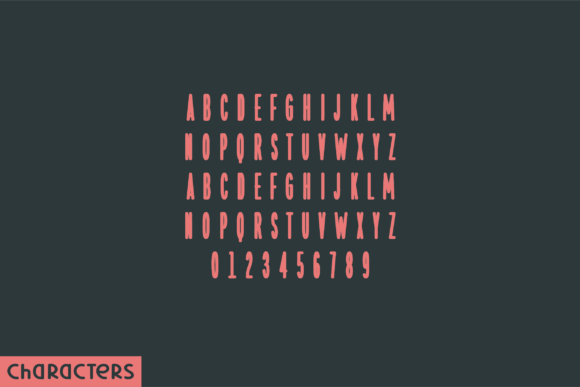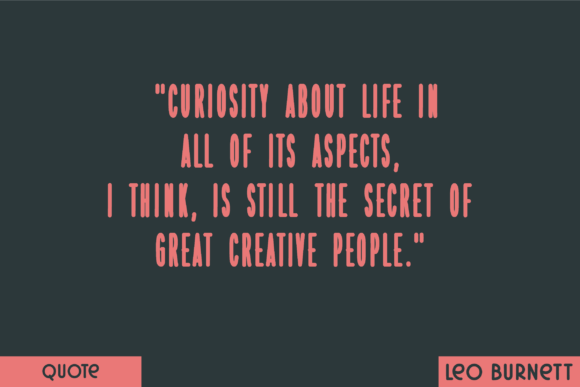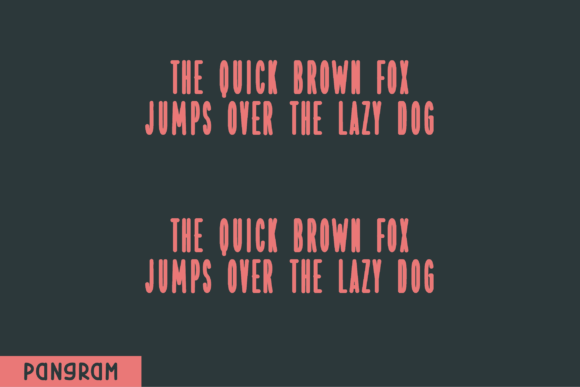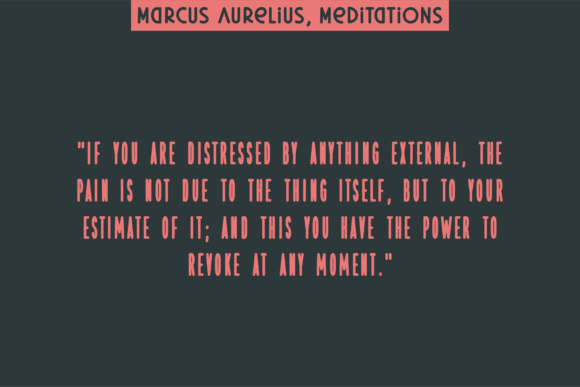
Introducing Granathea Font: A Unique Handwritten Style for Creative Designs
Are you tired of using the same old fonts for your designs? Look no further than Granathea Font, a natural handwritten font that is sure to add a touch of personality to your projects. What sets Granathea apart from other handwritten fonts is its unique approach to character design. Unlike other fonts that rely on changing the node indentation to create a distinctive look, Granathea’s creator has taken a different approach. By leaving each character’s indentation unchanged, Granathea Font boasts a one-of-a-kind appearance that is both interesting and captivating.
The Story Behind Granathea Font
Granathea Font is the brainchild of a talented designer who sought to create a font that would stand out from the crowd. With a focus on natural, handwritten style, Granathea Font is perfect for a wide range of design applications, from quotes and notes to t-shirts and product design. The font’s unique character indentation gives it a distinctive feel that is sure to grab attention. Whether you’re a professional designer or a crafty DIY enthusiast, Granathea Font is an excellent choice for adding a personal touch to your creations.
What Makes Granathea Font So Special?
So, what makes Granathea Font so special? The answer lies in its design. By keeping the indentation of each character consistent, the font’s creator has achieved a remarkable level of uniqueness. This approach gives Granathea Font a natural, organic feel that is hard to find in other fonts. The result is a font that is both elegant and playful, making it perfect for a wide range of design projects. Whether you’re looking to add a touch of whimsy to a child’s party invitation or create a sophisticated logo for a business, Granathea Font is an excellent choice.
Granathea Font is a dream come true for designers and crafters. With its unique character design and natural handwritten style, it’s the perfect addition to any design toolkit. Whether you’re a professional graphic designer or a DIY enthusiast, Granathea Font offers endless possibilities for creative expression. Use it to create stunning quotes, notes, and posters, or to add a personal touch to your handmade crafts. The font’s versatility and charm make it an excellent choice for a wide range of projects.
Using Granathea Font in Your Designs
So, how can you use Granathea Font in your designs? The possibilities are endless! Here are a few ideas to get you started:
- Quotes and posters: Add a touch of elegance and sophistication to your quotes and posters with Granathea Font.
- T-shirts and apparel: Create eye-catching designs for t-shirts, hoodies, and other apparel with Granathea Font.
- Notes and journals: Add a personal touch to your notes and journals with Granathea Font.
- Product design: Use Granathea Font to create unique and eye-catching designs for your products.
Get Ready to Fall in Love with Granathea Font
In conclusion, Granathea Font is a game-changer for designers and crafters. Its unique approach to character design and natural handwritten style make it a standout font that is sure to add a touch of personality to any design project. Whether you’re a professional designer or a DIY enthusiast, Granathea Font is an excellent choice for adding a personal touch to your creations. So don’t miss out on this amazing opportunity to elevate your designs with Granathea Font. Download it today and start creating!